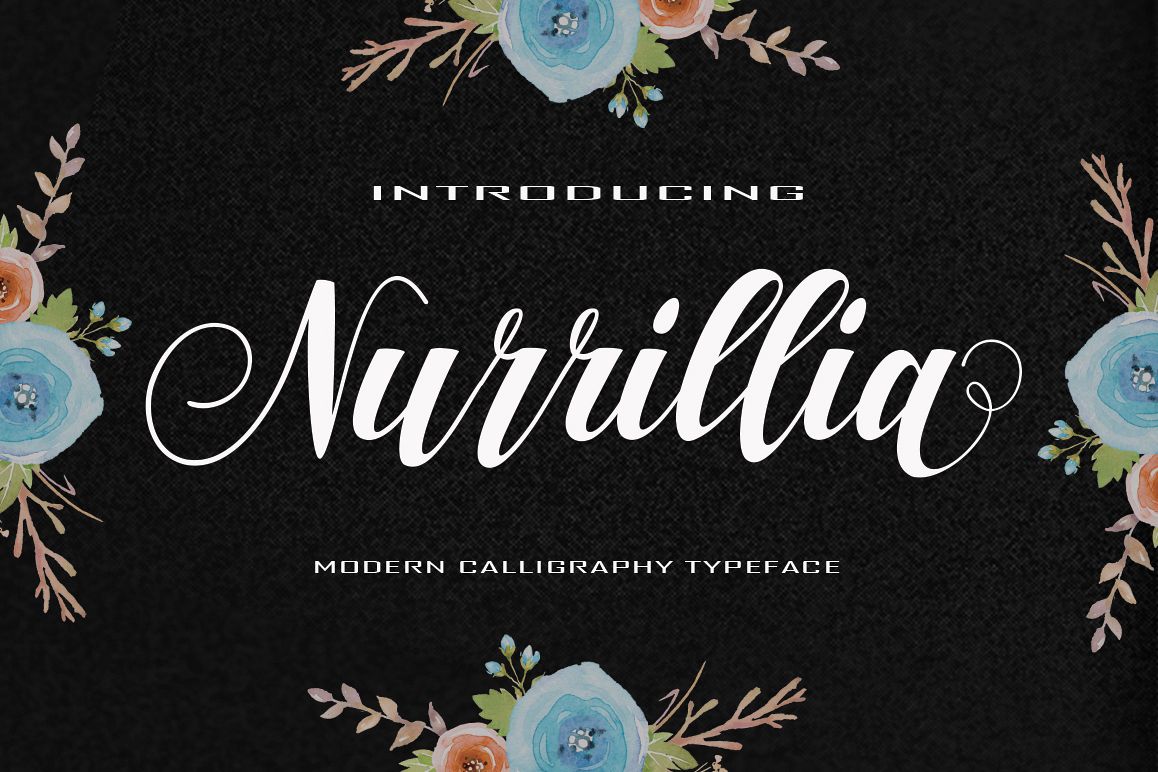
Nurrillia
Nurrillia.
INTRODUCING
Nurrillia is a font that made the hand by having the character up and down like a dancer. Freestyle has a very unique style of calligraphy, it is very suitable for use in the work of modern design.
The Features of this fonts is:
Standart ligatures
Stylistic Alternates
Stylistic sets
PUA Unicode (Private Use Areas)
Swash font
Can be used for various purposes.such as headings, logos, wedding invitation, t-shirt, letterhead, lable, news, posters, badges etc. To enable the OpenType Stylistic alternates, you need a program that supports OpenType features such as Adobe Illustrator CS, Adobe Indesign & CorelDraw X6-X7.a font that made the hand by having the character up and down like a dancer. Freestyle has a very unique style of calligraphy, it is very suitable for use in the work of modern design.